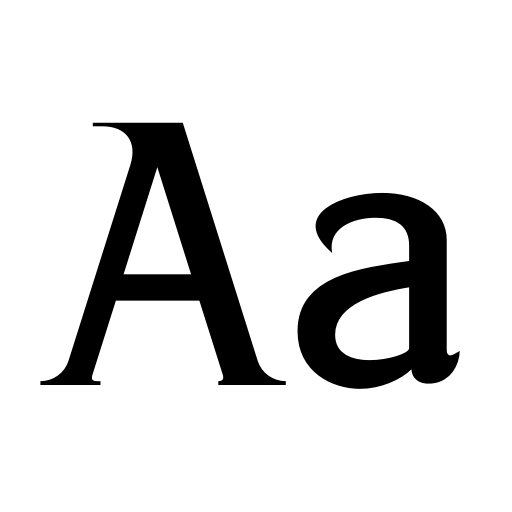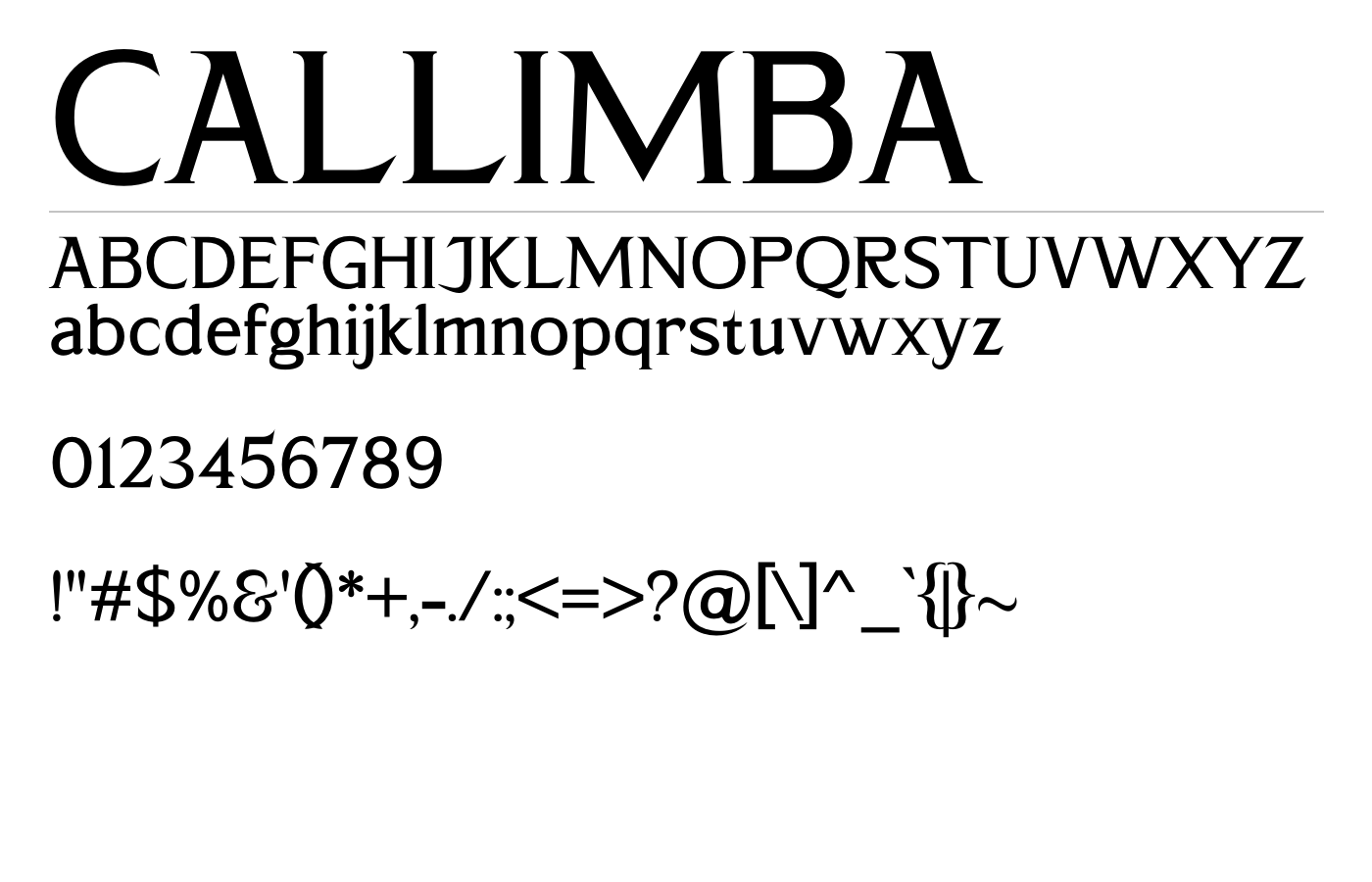
Callimba is a serif font with an elegant and refined character, featuring moderate contrast between thick and thin strokes and sharp, tapered serifs that give it a classic yet sophisticated feel. Its medium weight and normal width, coupled with distinctive letter shapes like the single-story g and unique Q tail, make it ideal for stylish headlines, editorial content, and branding that seeks a timeless, literary aesthetic. This font works best in settings where a touch of tradition and authority is desired, such as luxury publications, formal invitations, and high-end packaging.
CALLIMBA Font
About CALLIMBA Font